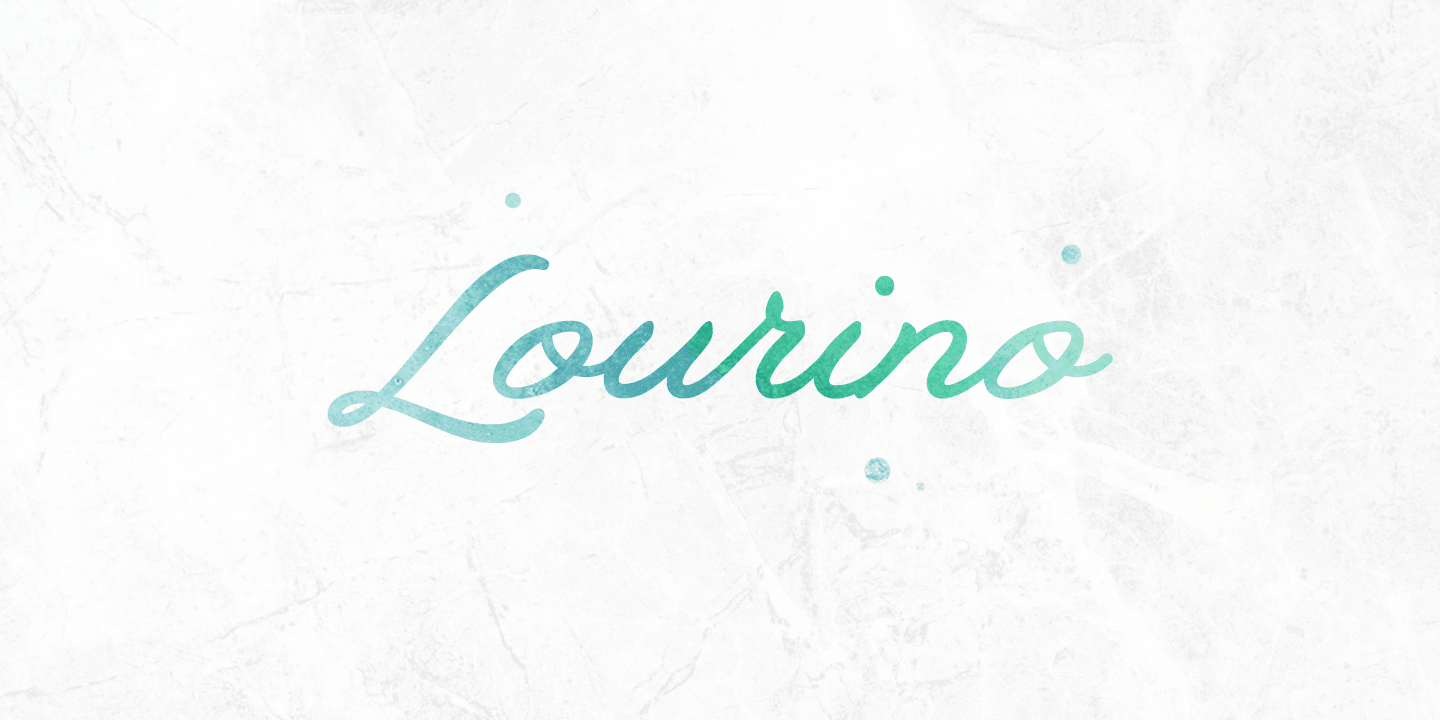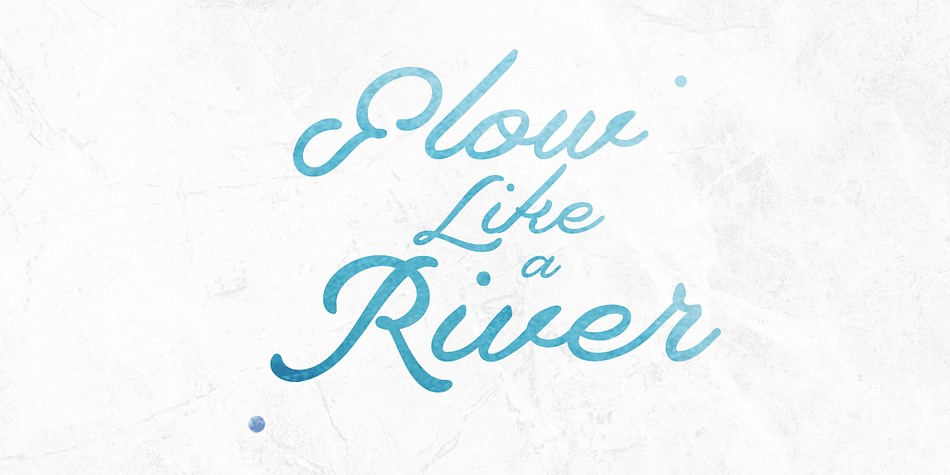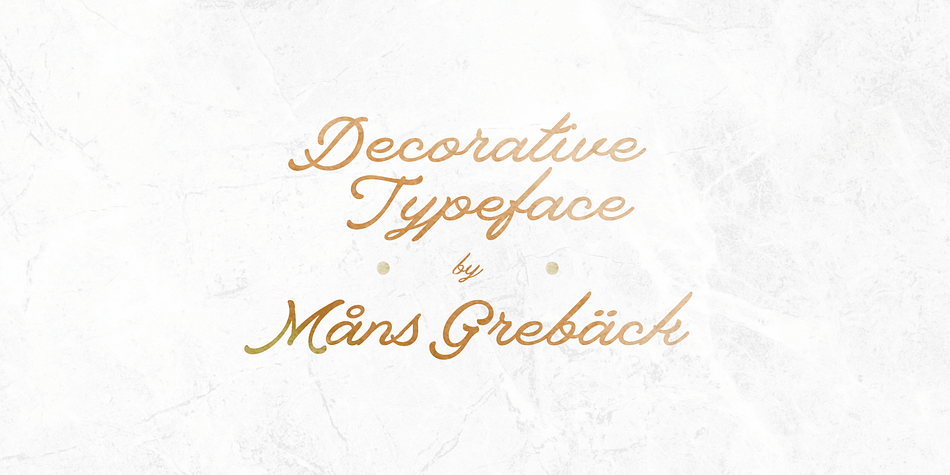
Designed by Måns Grebäck, Lourino is a script font published by Måns Grebäck.
Lourino is a flowing script typeface, drawn by Måns Grebäck during 2018. It is a high-quality font with cute letter shapes and large, round capitals.
The font has an extensive set of characters and supports all Latin based European languages.